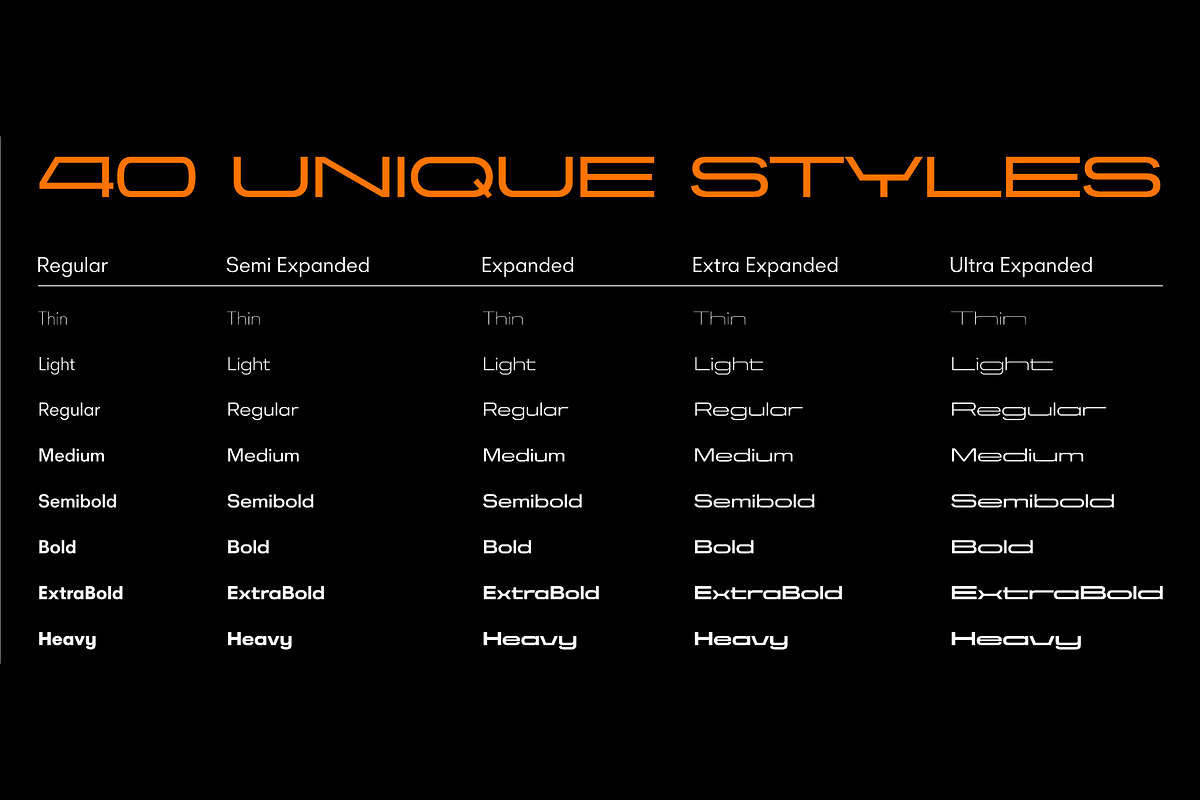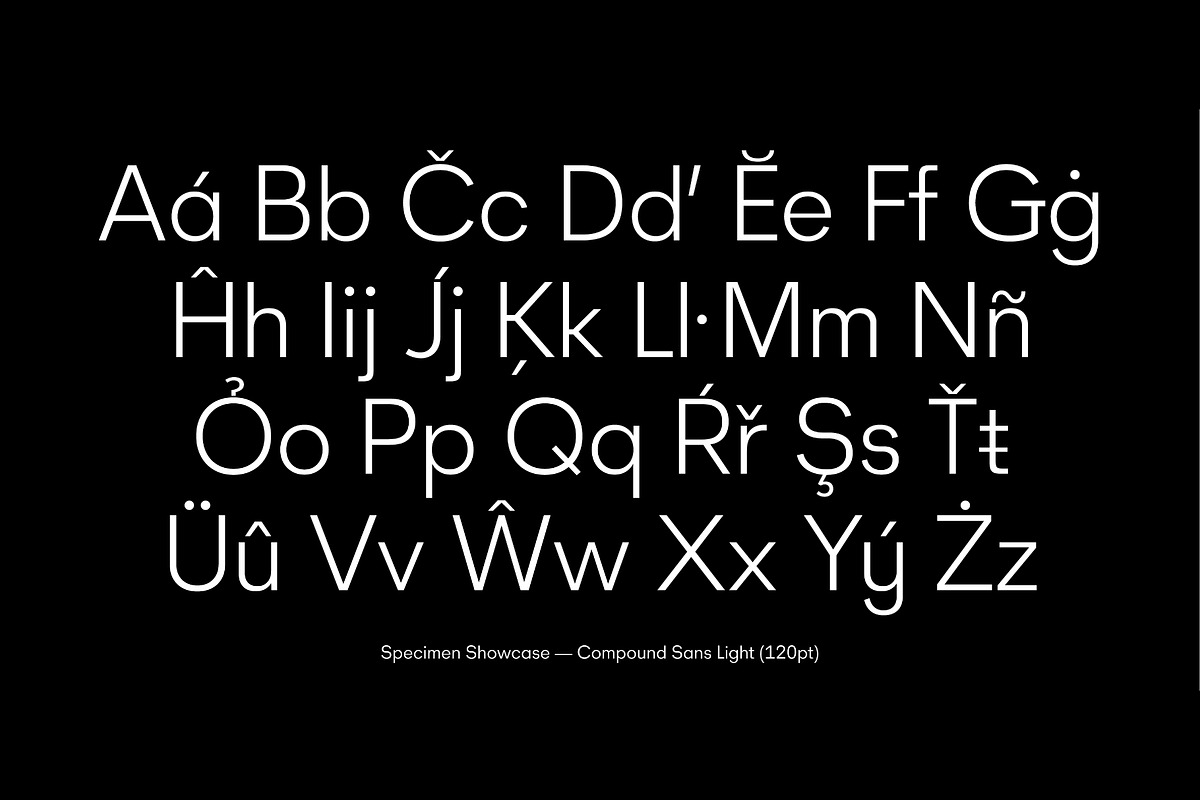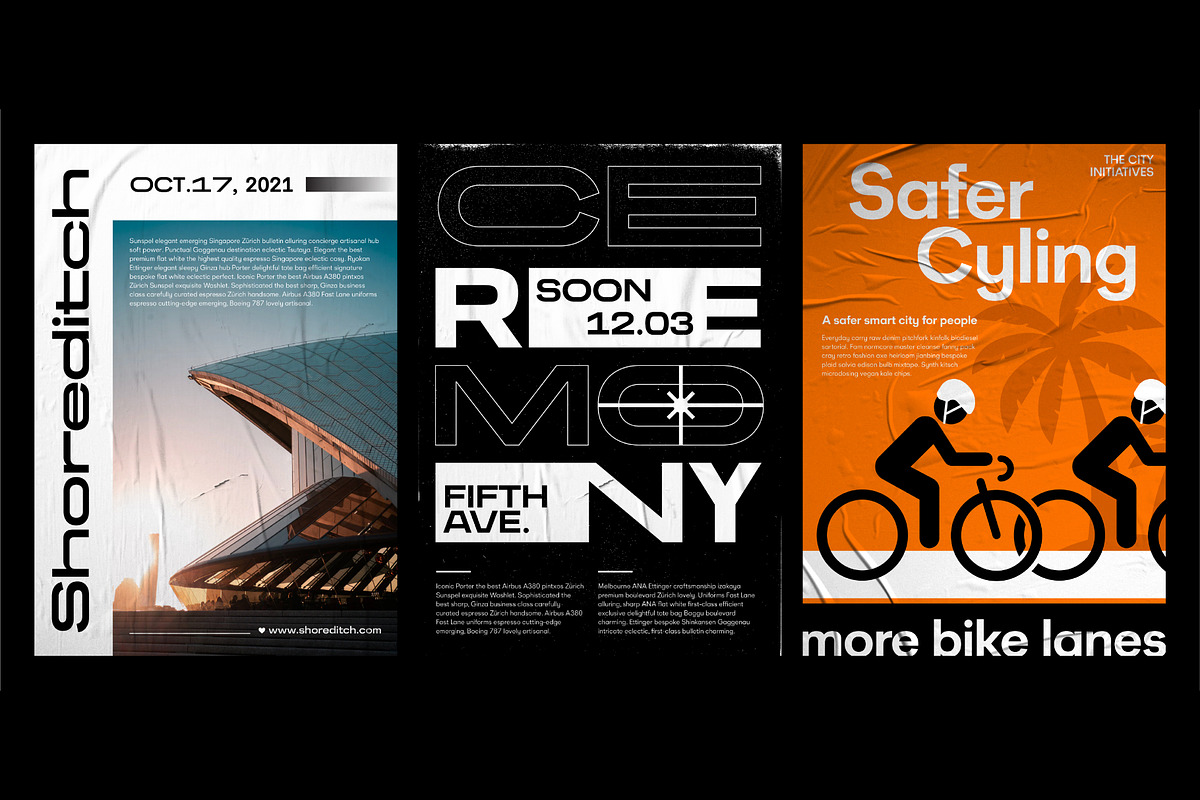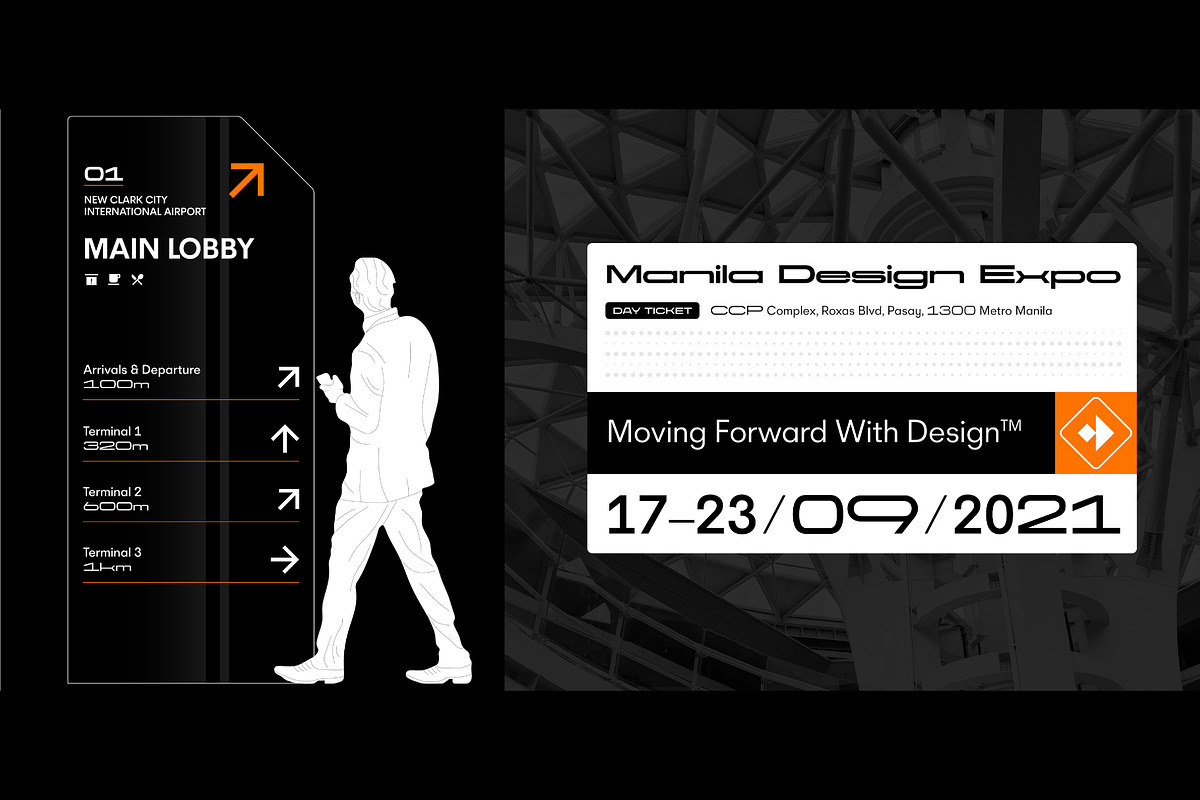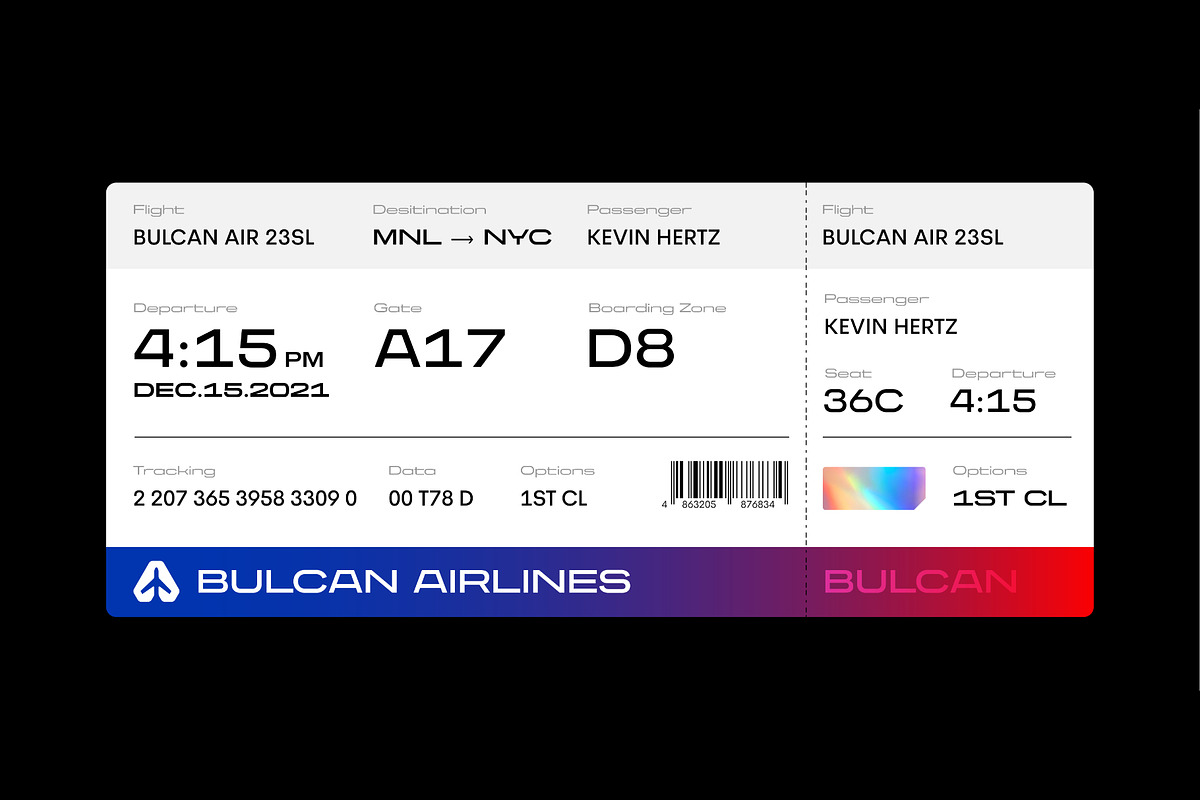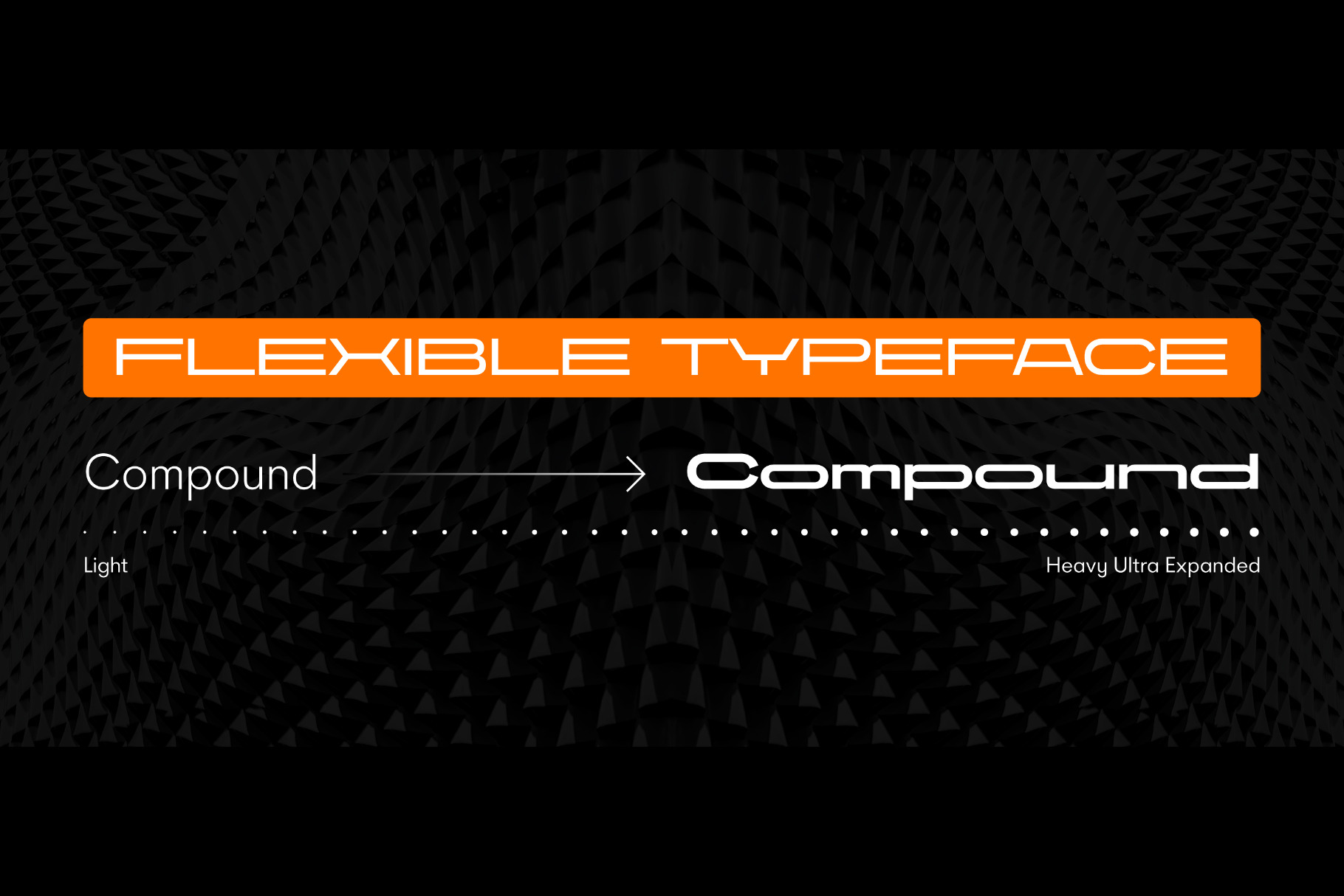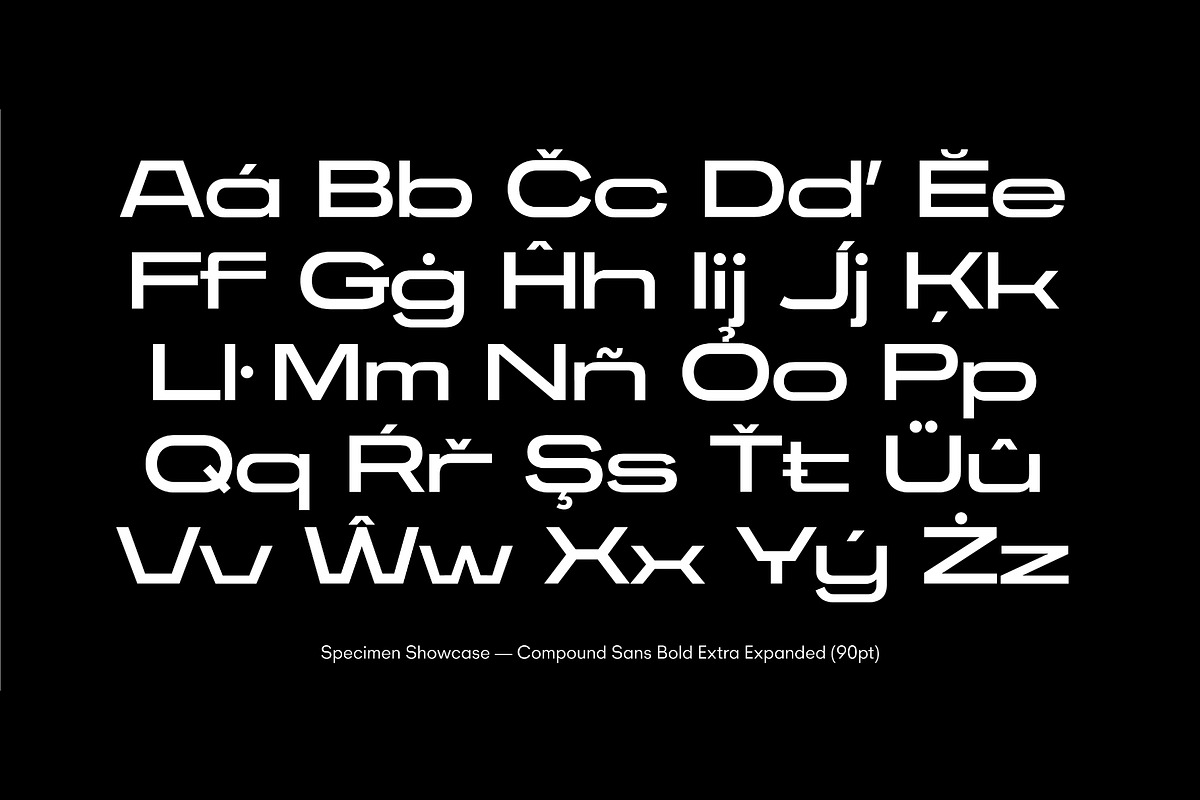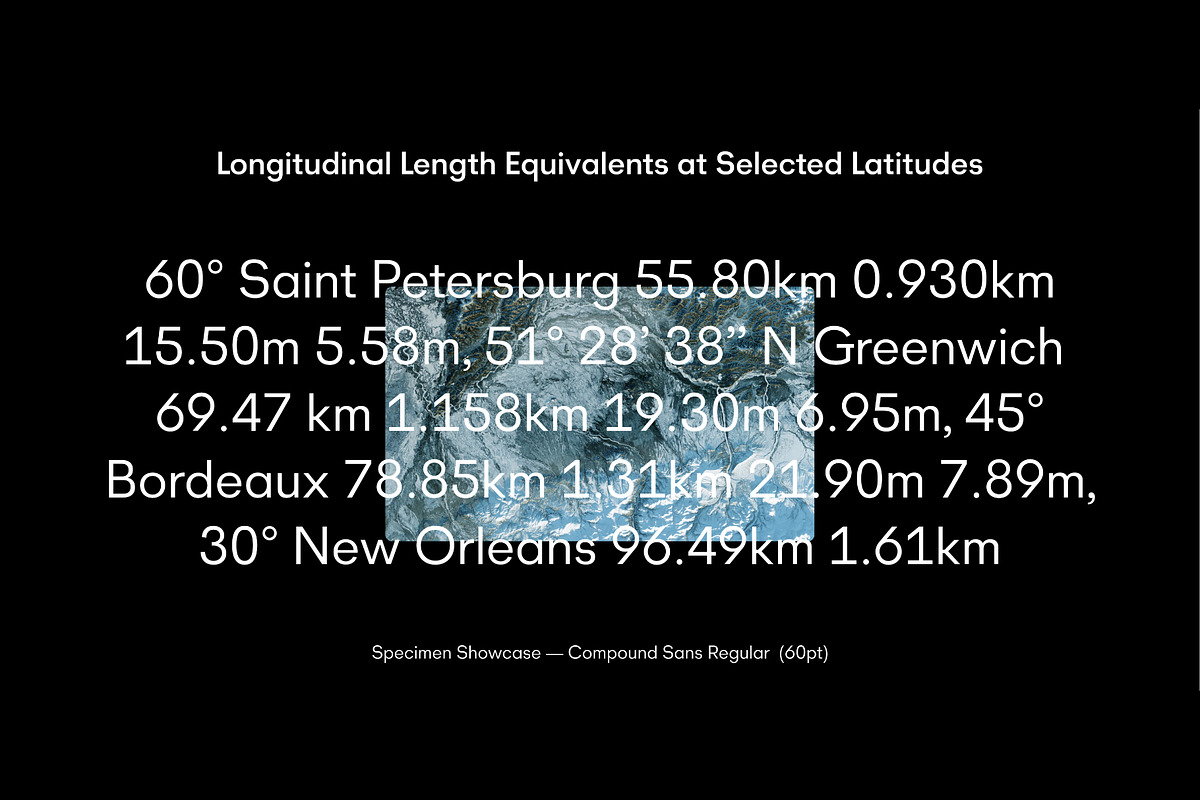
Compound Sans Typeface
Compound Sans is our first *variable geometric sans that is able to perform as text and display typeface. The complete set has 45 styles with 9 weights from thin to heavy.